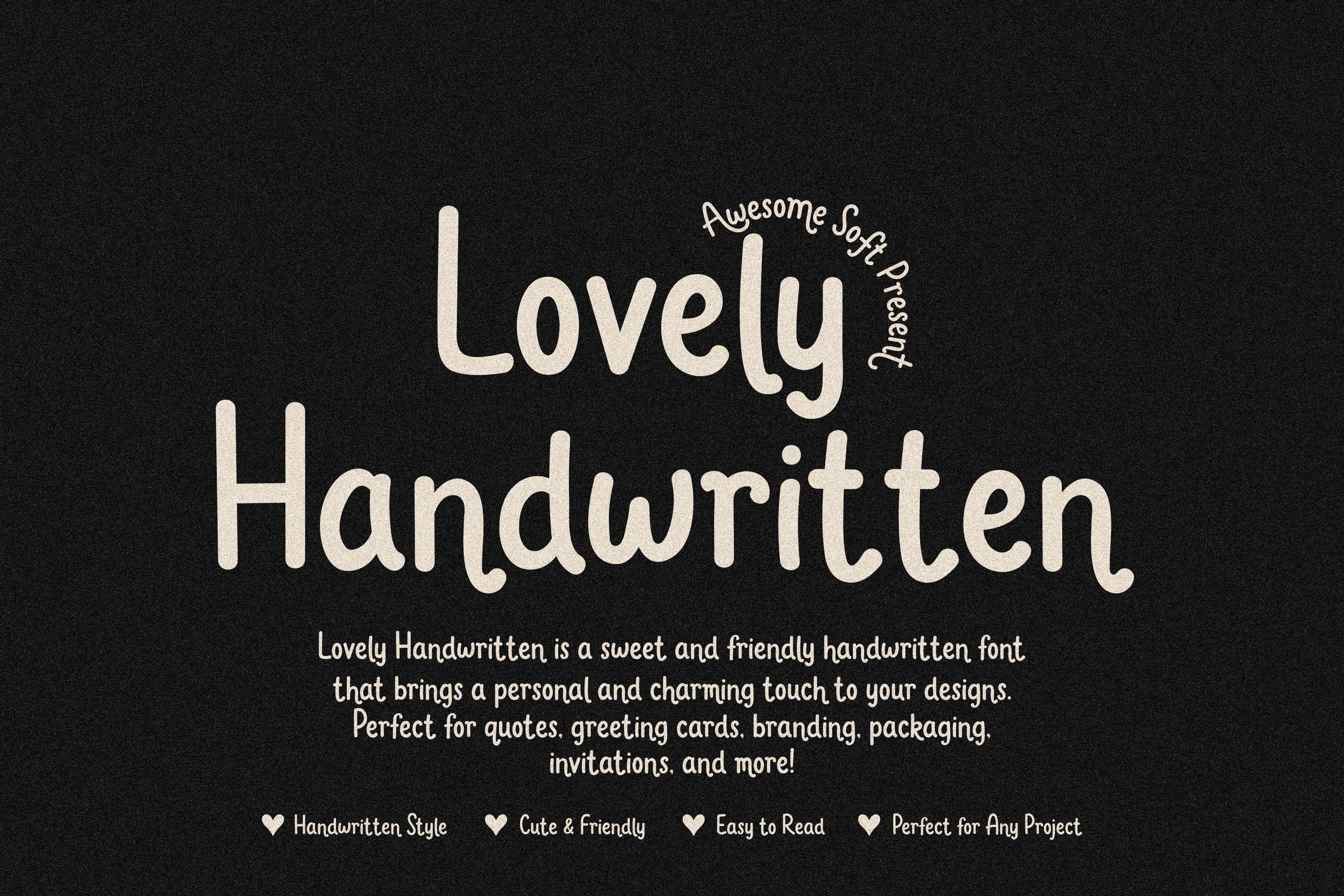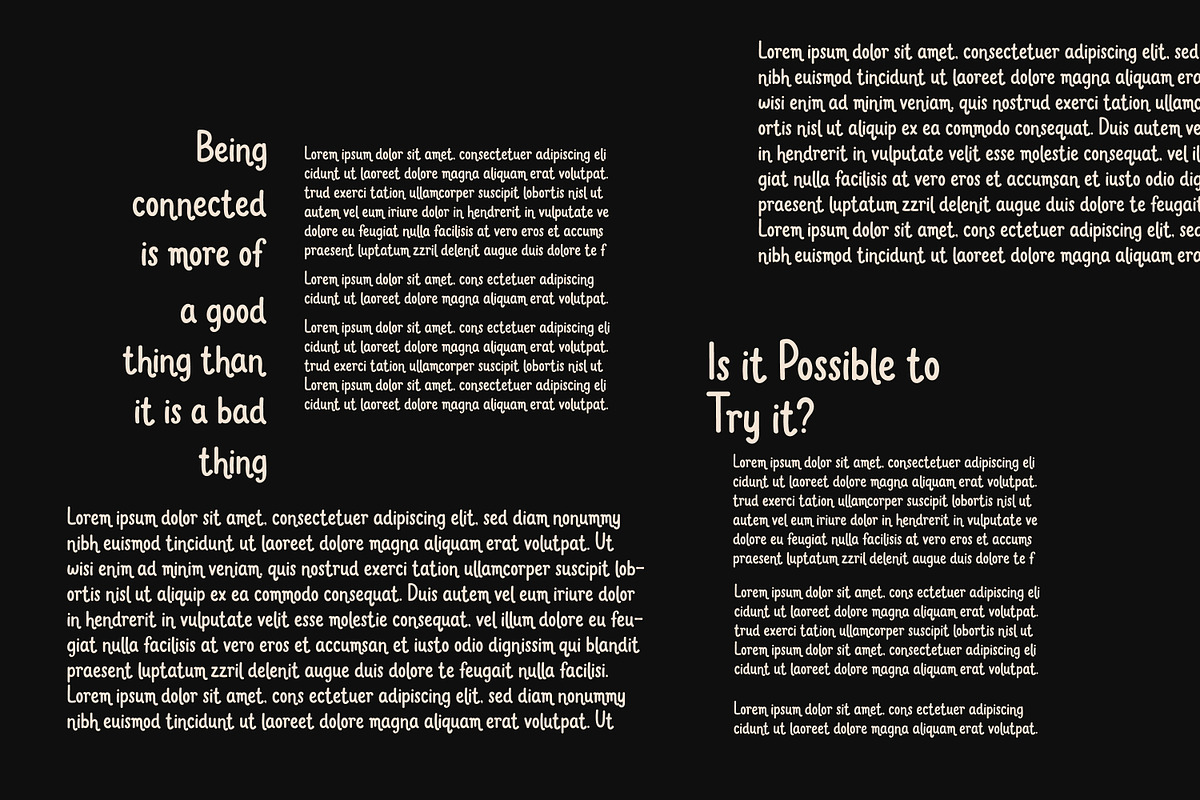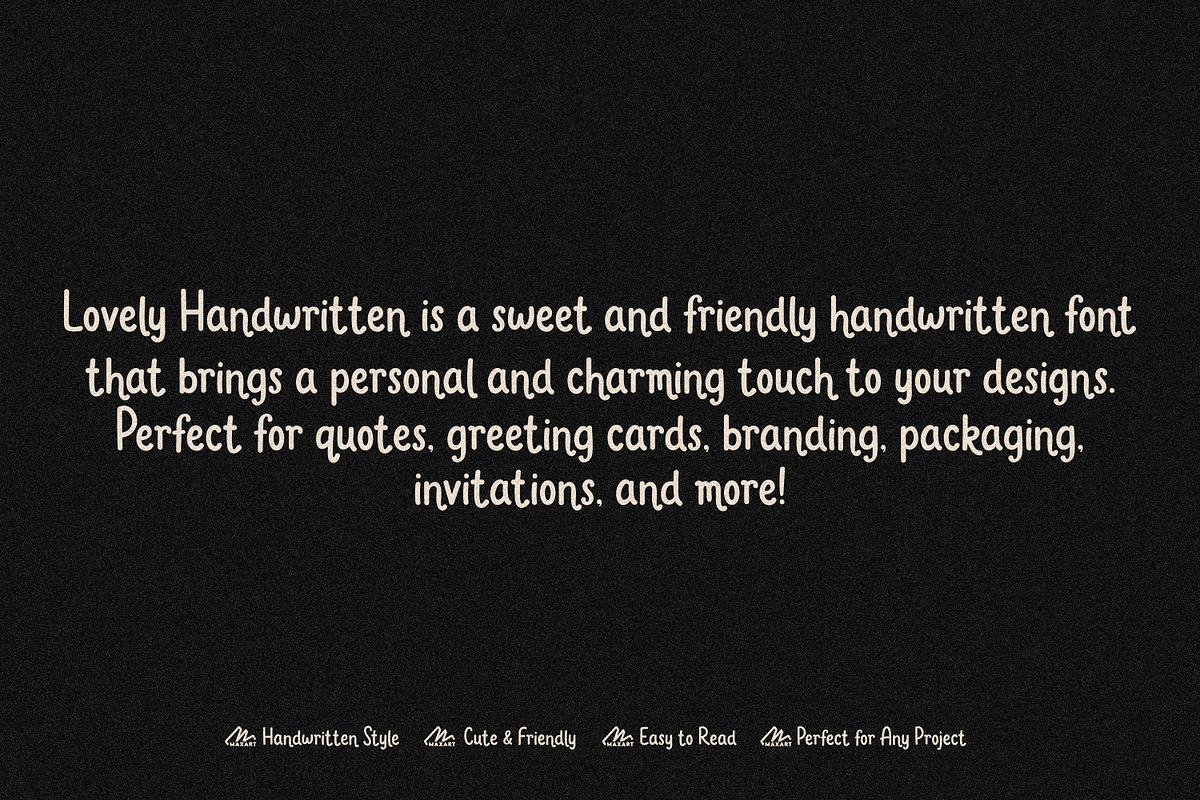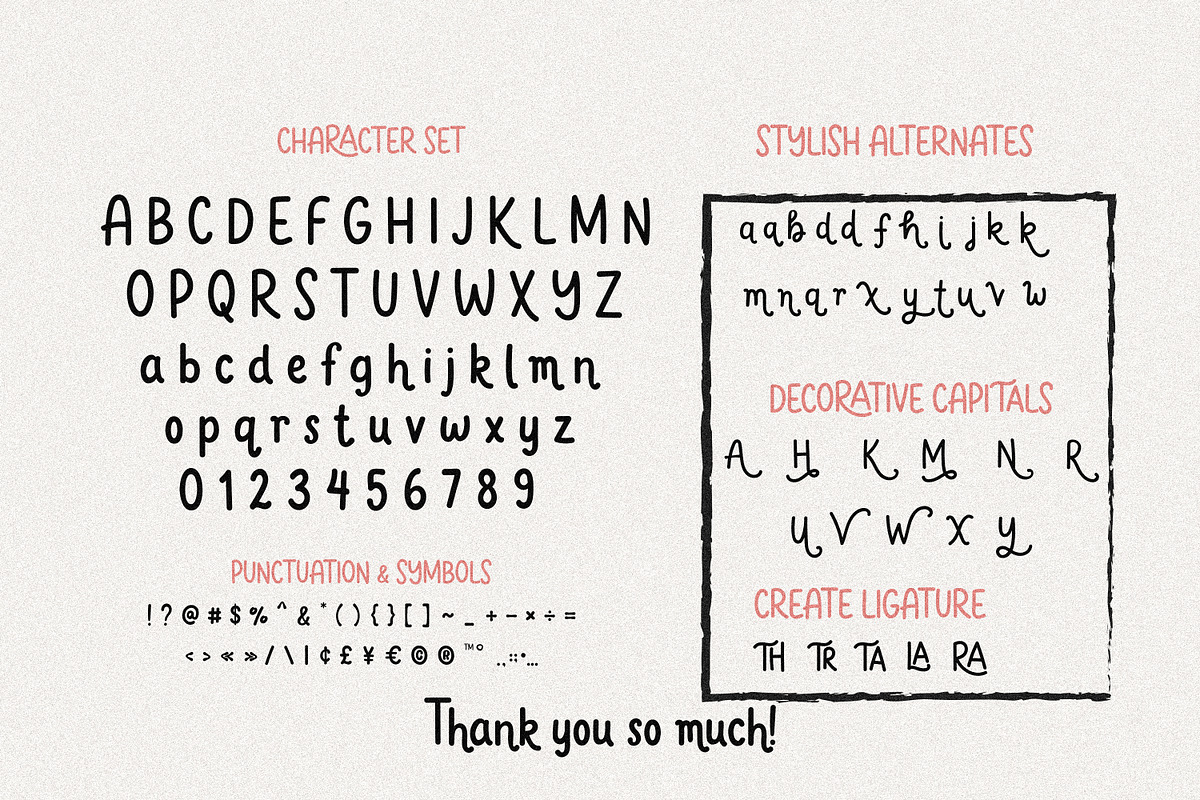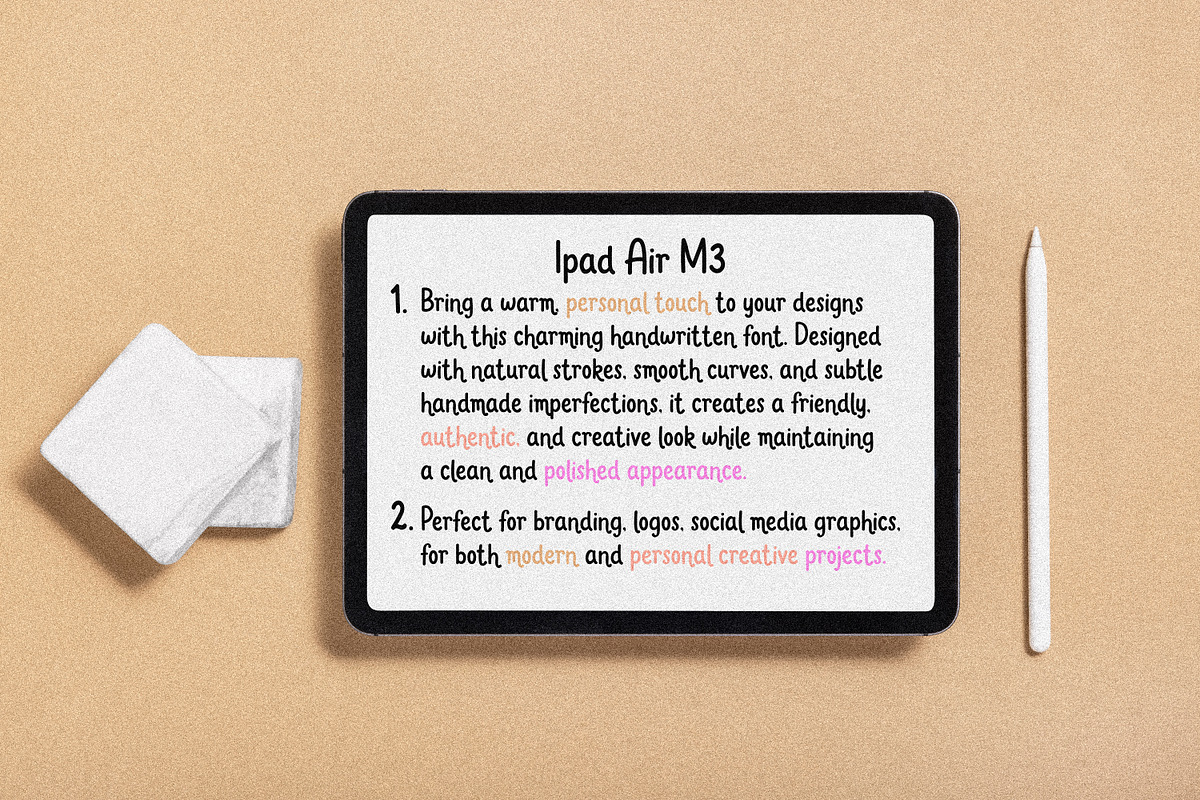
Lovely Handwritten Font
Lovely Handwritten Bring a warm, personal touch to your designs with this charming handwritten font. Designed with natural strokes, smooth curves, and subtle handmade imperfections, it creates a friendly, authentic, and creative look while maintaining a clean and polished appearance.
Perfect for branding, logos, social media graphics, quotes, invitations, packaging, stationery, posters, greeting cards, apparel, and more. Its versatile handwritten style works beautifully for both modern and personal creative projects.
* Handcrafted handwritten style
* Smooth and natural letterforms
* Clean and professional appearance
* Uppercase & lowercase letters
* Numbers and punctuation
* Great for branding, logos, stationery, invitations, and social media
Give your projects a unique handwritten personality with a font that feels creative, friendly, and authentically made by hand.